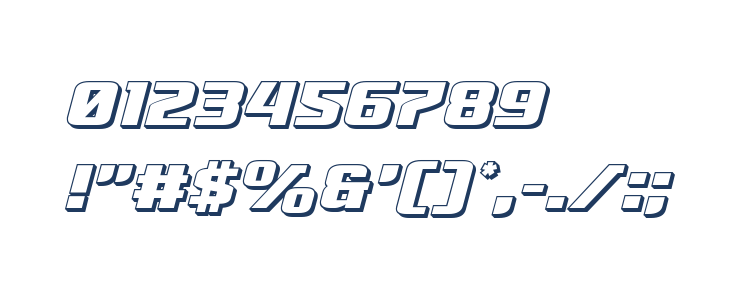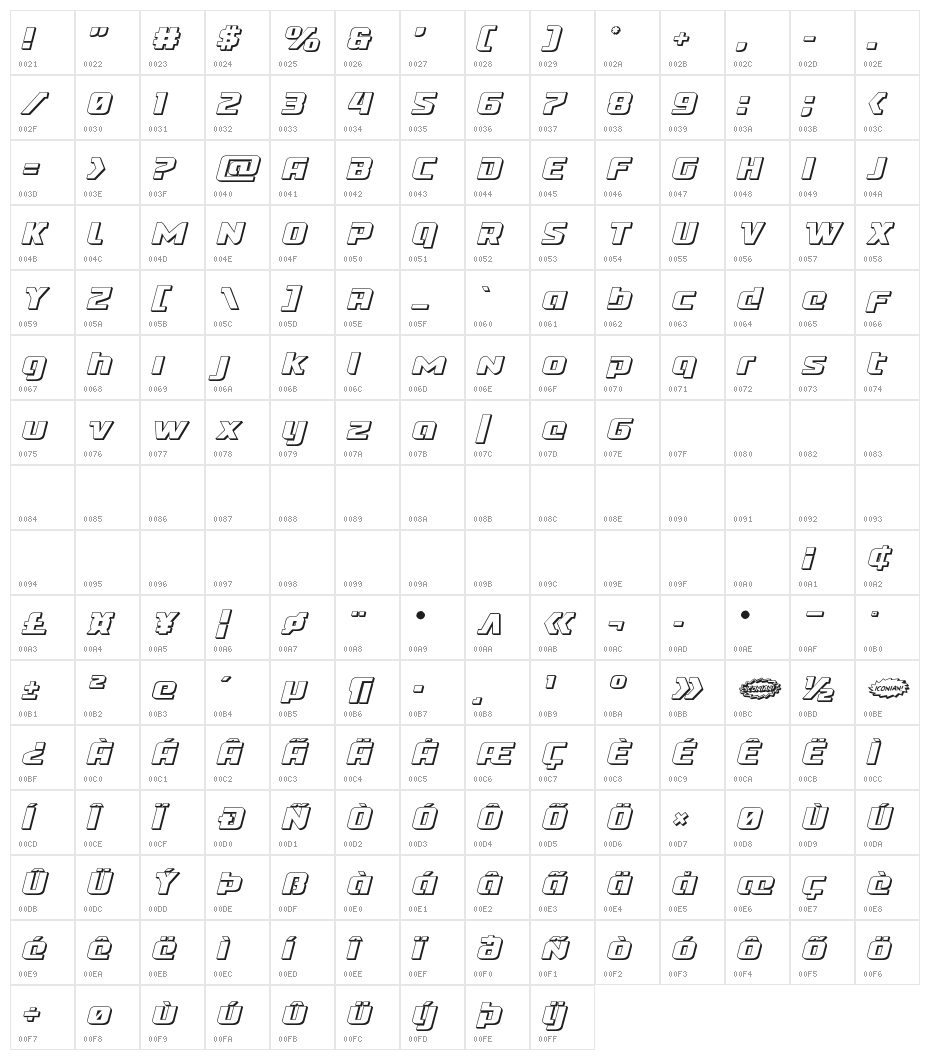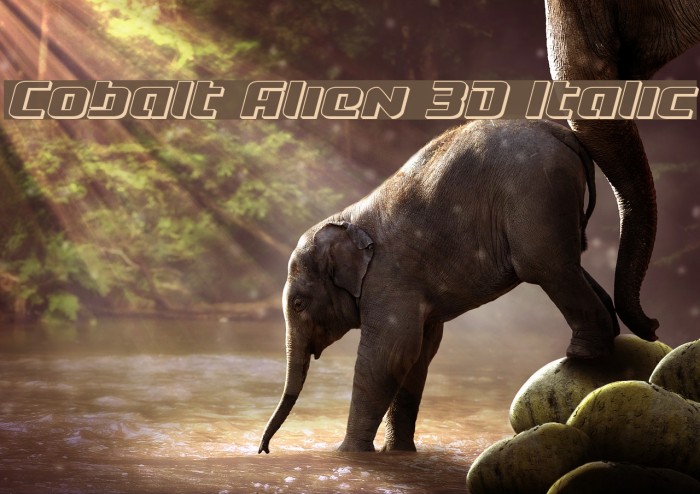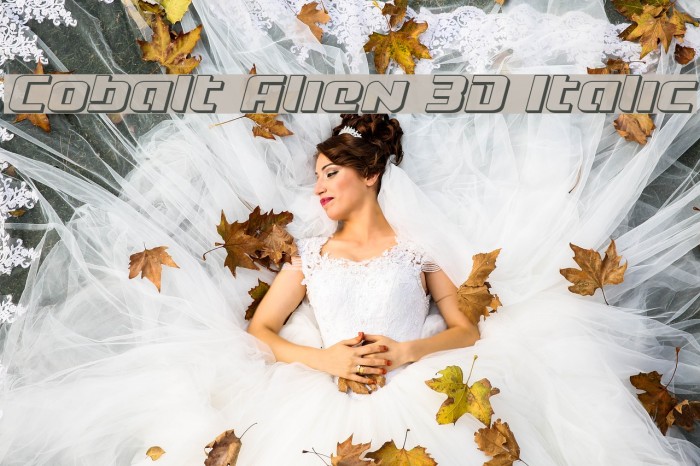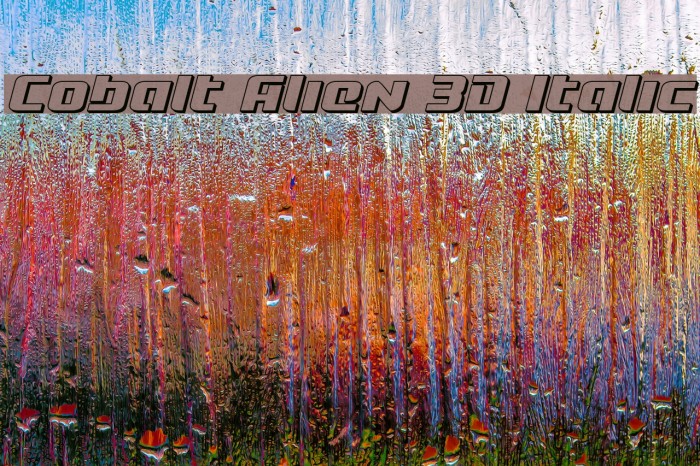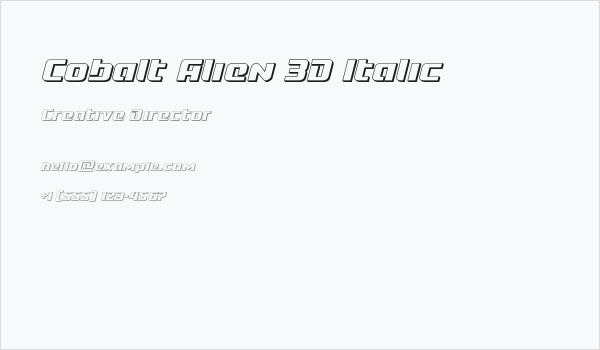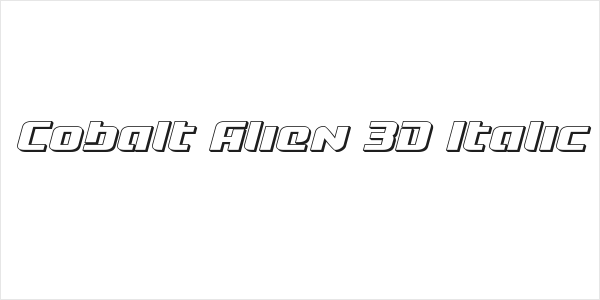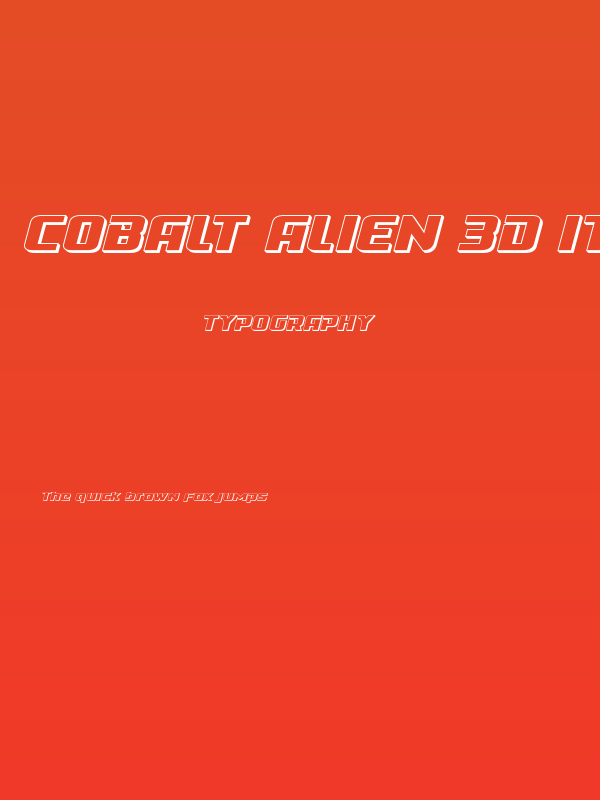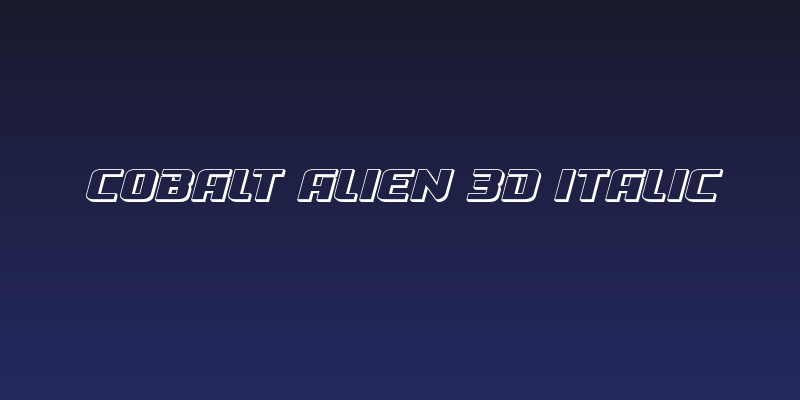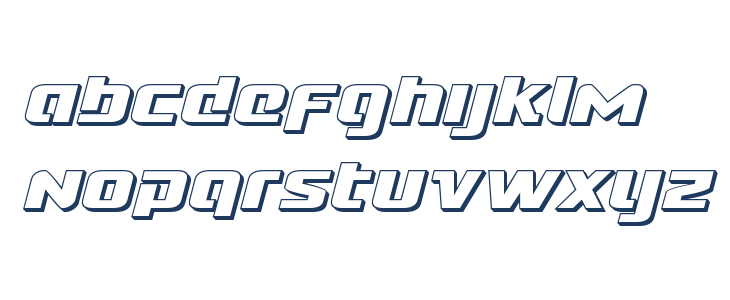
Cobalt Alien 3D Italic Font
Cobalt Alien 3D Italic Description
This font features a bold, futuristic design with a 3D effect that gives it a dynamic and modern appearance. The letters are italicized, adding a sense of motion and speed. Each character is outlined, creating a striking contrast between the inner and outer edges. The uppercase and lowercase letters maintain a consistent style, with angular lines and sharp edges that enhance the overall geometric look. Numbers and special characters follow the same design principles, ensuring uniformity across all elements. The font's unique style makes it ideal for projects that require a bold, eye-catching typeface.
| Proposed Projects | Ideal for sci-fi themed posters, video game titles, tech branding, and futuristic logos. |